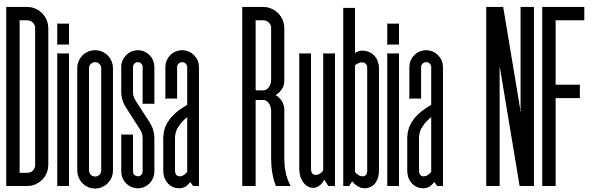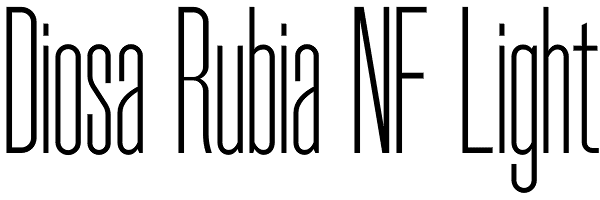
Diosa Rubia NF
This svelte type family, whose name translates as "Blonde Goddess", is ideal for creating loquacious headlines in tight spaces, as well as dense informational blocks such as movie credits. Available in three weights. This font contains the complete...